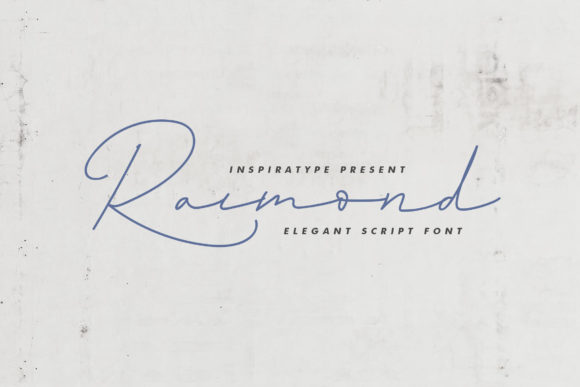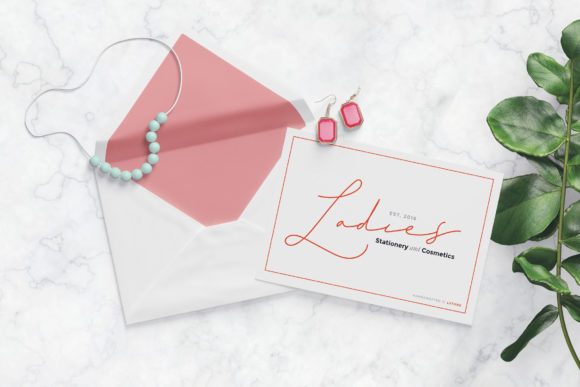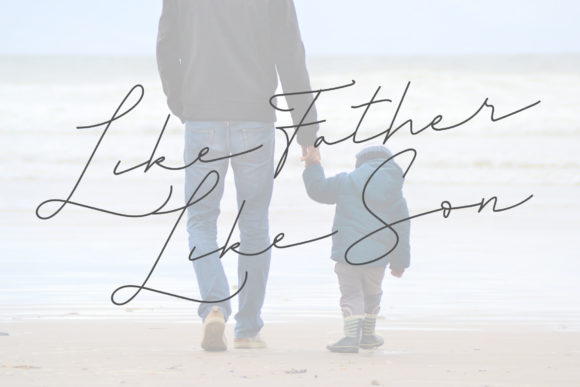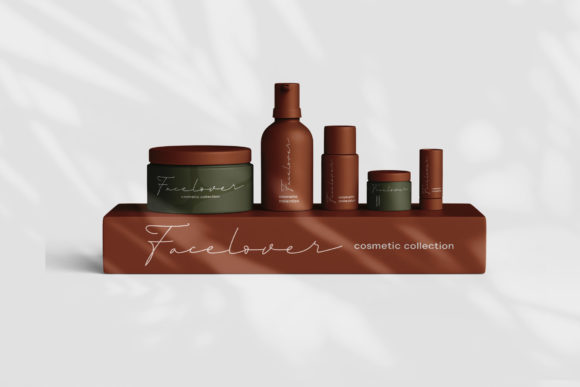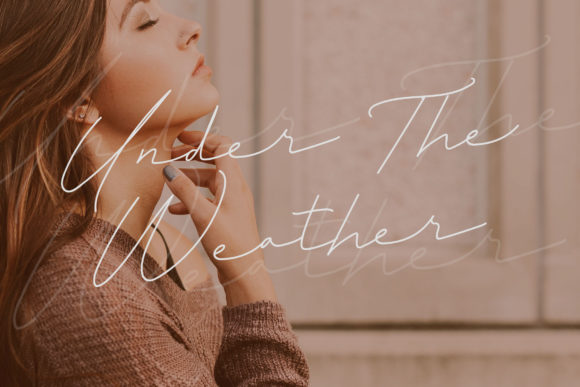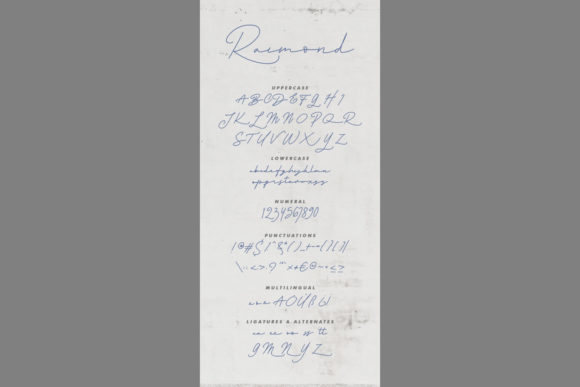
Raimond Font
About Raimond Font
Raimond embodies elegance and romance in one truly outstanding font. It maintains its classy calligraphic influences while feeling contemporary and fresh. This versatility will appeal to a wide range of crafty ideas, from letterheads and titles, to stationery.